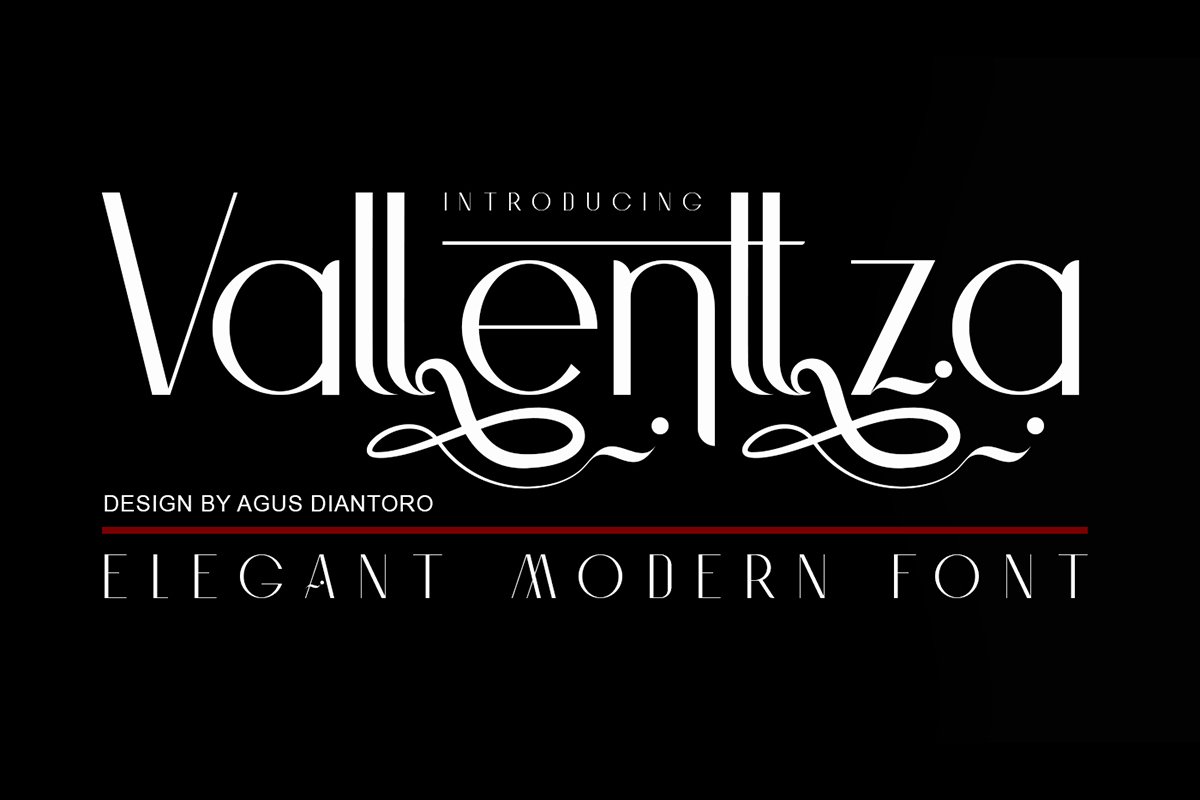
Vallenttza
Vallenttza is an elegant and modern font sans serif. Equipped with alternate and ligature characters that are quite unique but simple.
It is suitable for making business logos, product displays, baners, brands, business cards, invitation cards, typography making, for YouTube videos, presentation slides, book covers, etc.